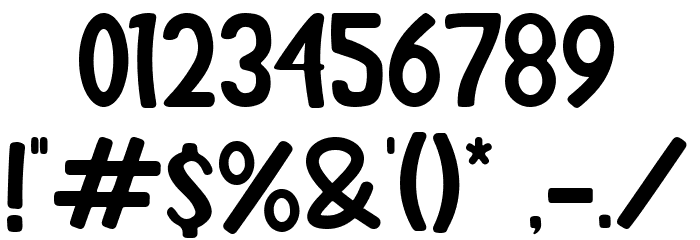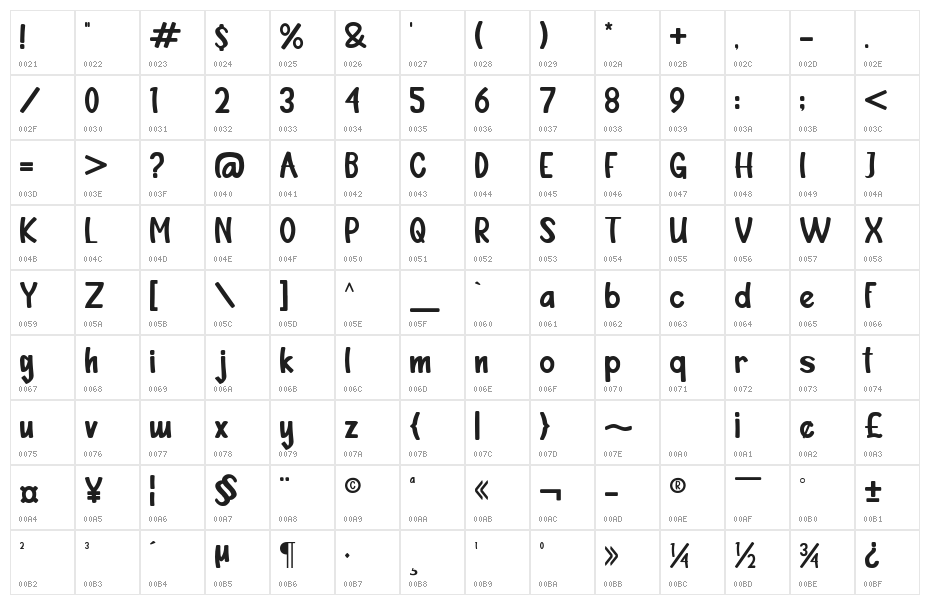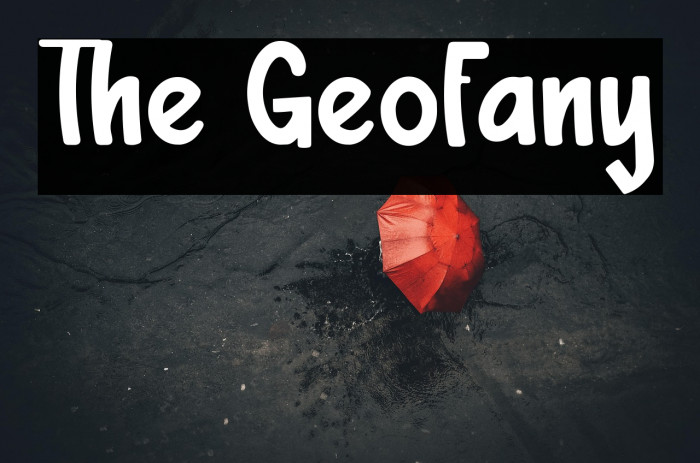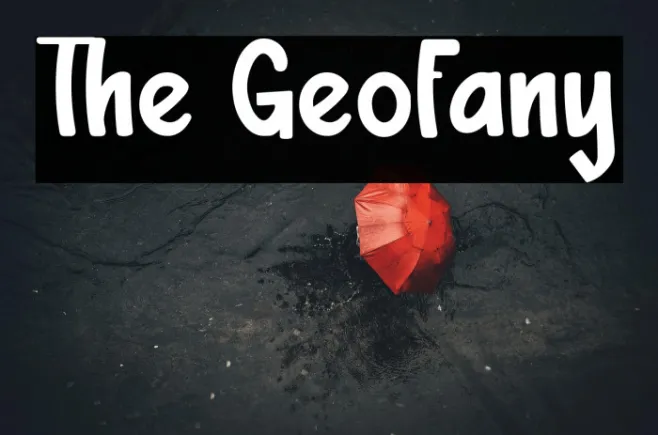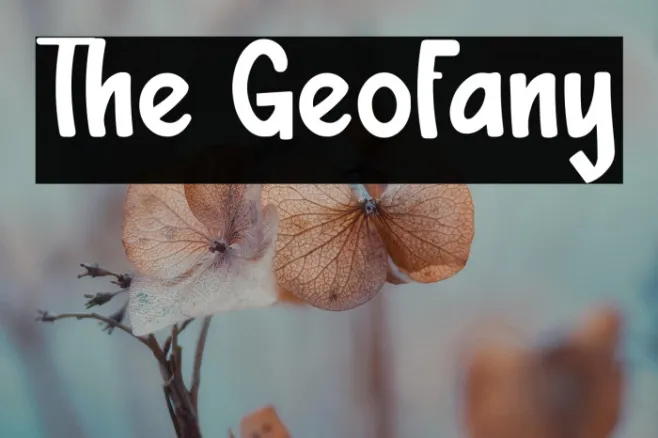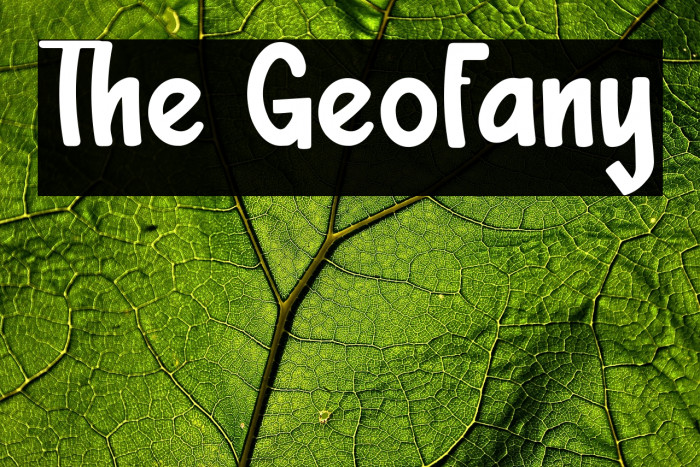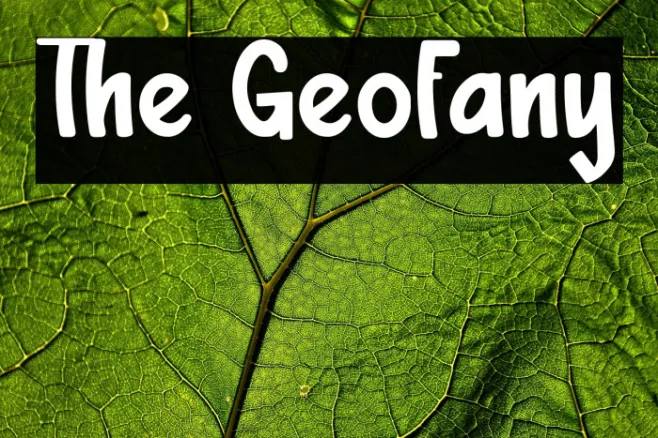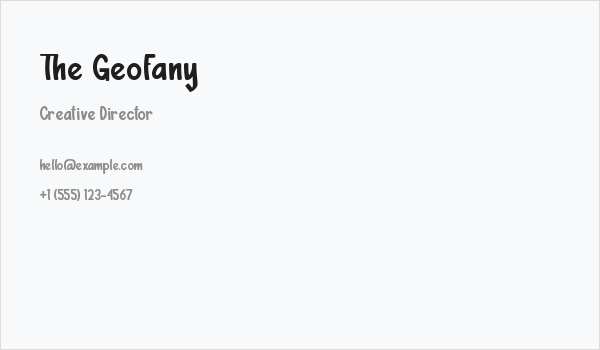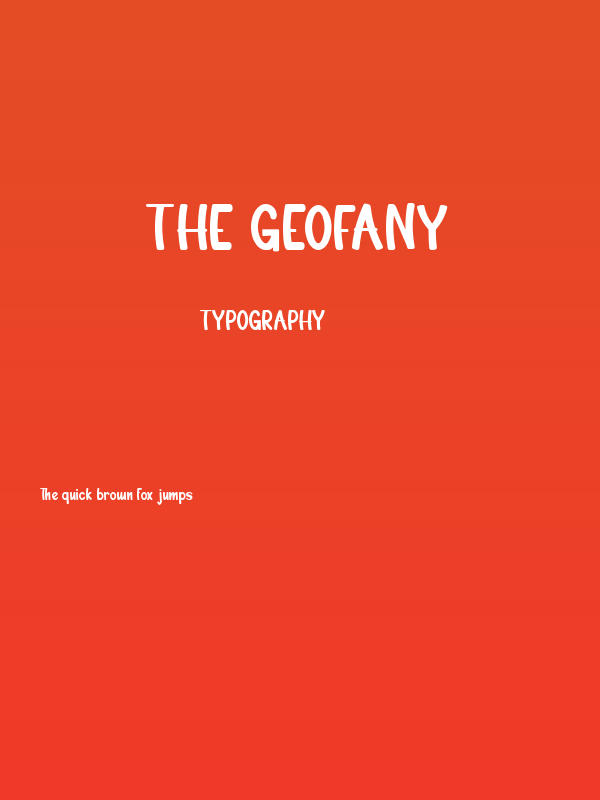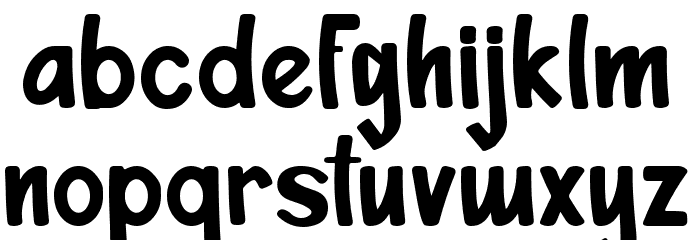
The Geofany Font
The Geofany Description
This font features a playful and bold style, characterized by its thick strokes and rounded edges. The uppercase letters are slightly taller than the lowercase, maintaining a consistent width that gives it a uniform appearance. The numbers and special characters follow the same design principles, ensuring a cohesive look across all elements. The font's casual and friendly vibe makes it suitable for projects that require a touch of personality and approachability. Its readability is enhanced by the clear distinction between each character, making it ideal for both digital and print media.
| Proposed Projects | Ideal for children's books, playful branding, posters, and social media graphics. |